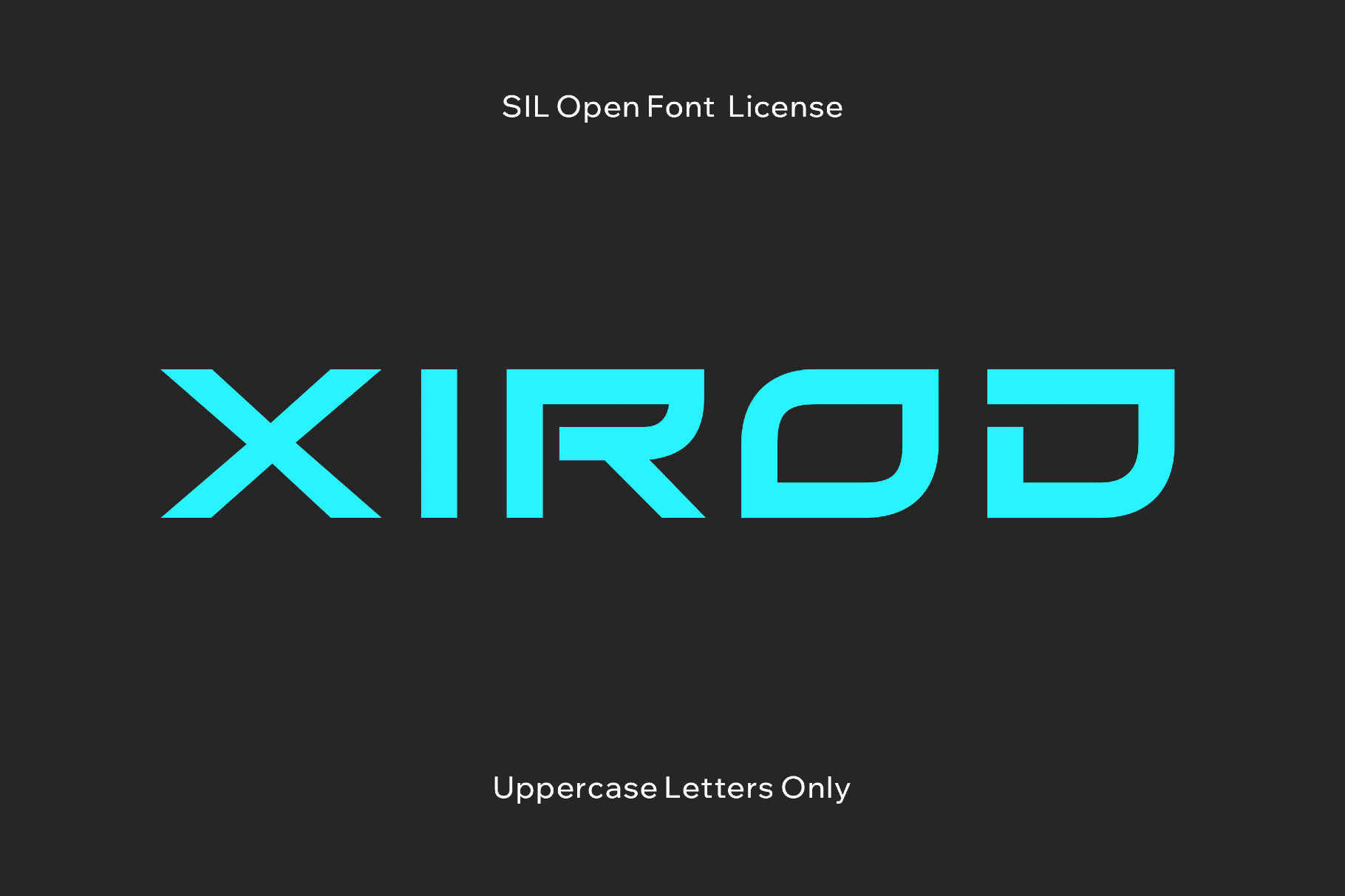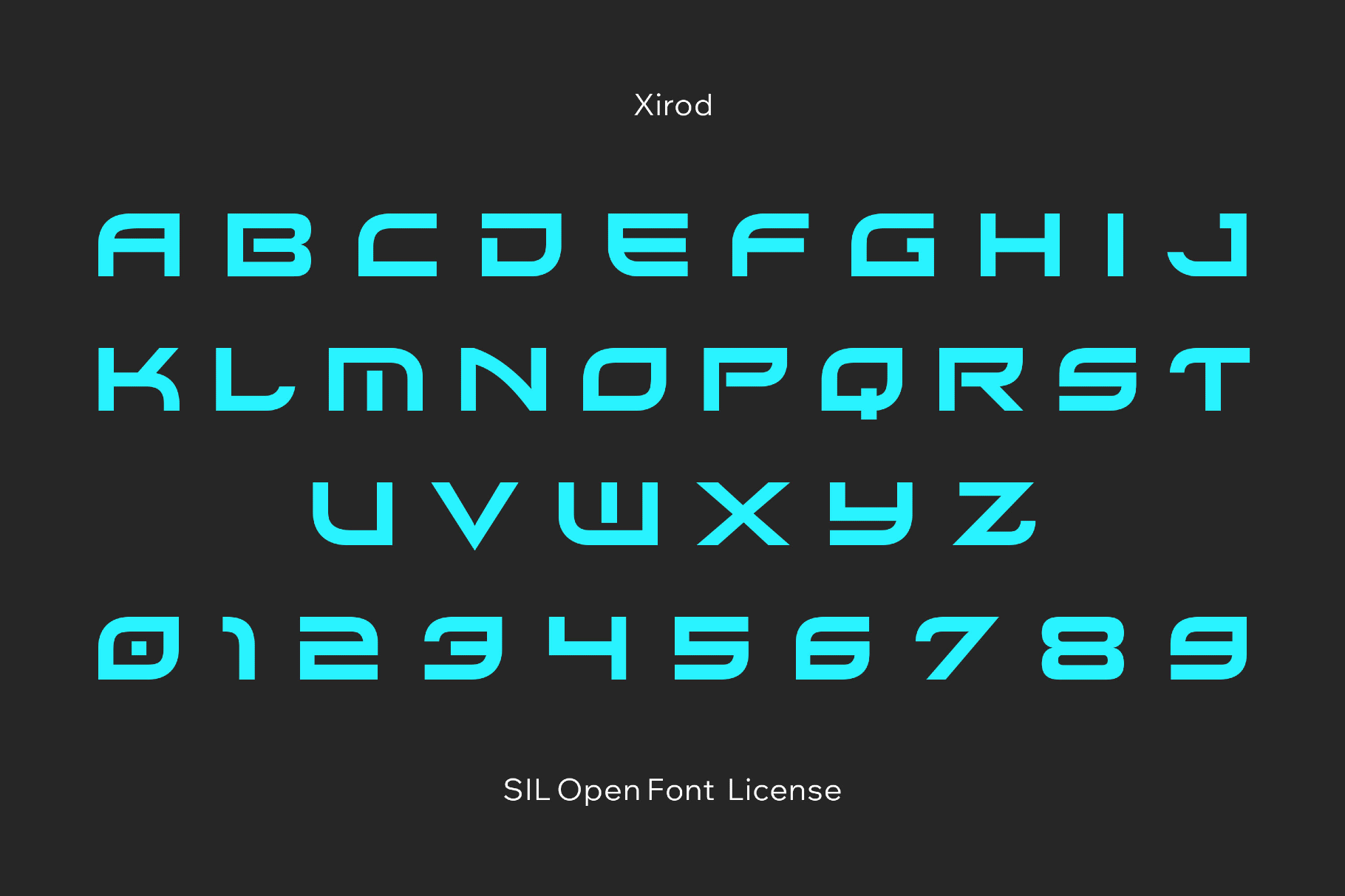
Xirod - Space Arcade Font
Xirod
Xirod looks like it was stamped onto the side of a combat mech, an arcade cabinet, and a piece of hardware that definitely comes with a warning label. The sharp, armored letterforms are full of tension and give the typography a deliberately hostile edge.
This space font works naturally for game titles, poster headlines, album covers, merch graphics, tech identities, packaging, editorial openers, motion frames, tech branding, and experimental visuals.
- uppercase letters;
- numbers, punctuation, dingbats, and symbols;
- multilingual support across an extended Latin script;
- ligatures.